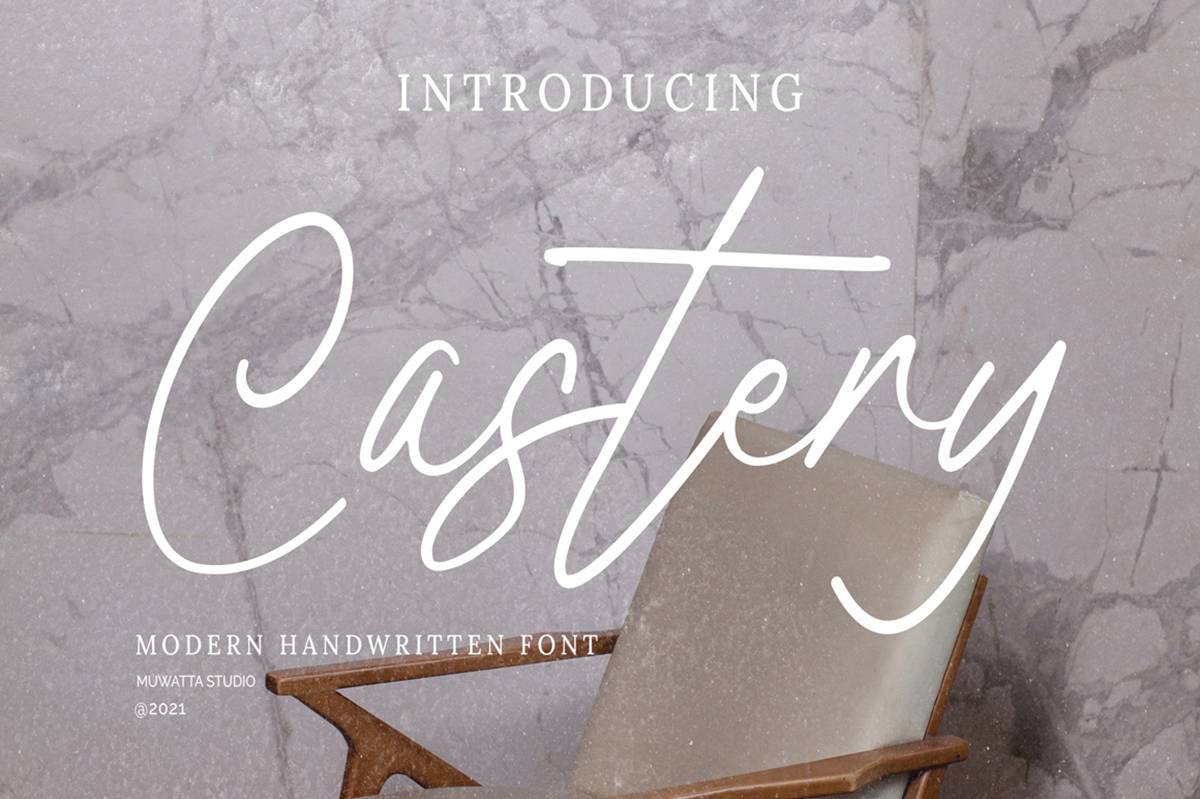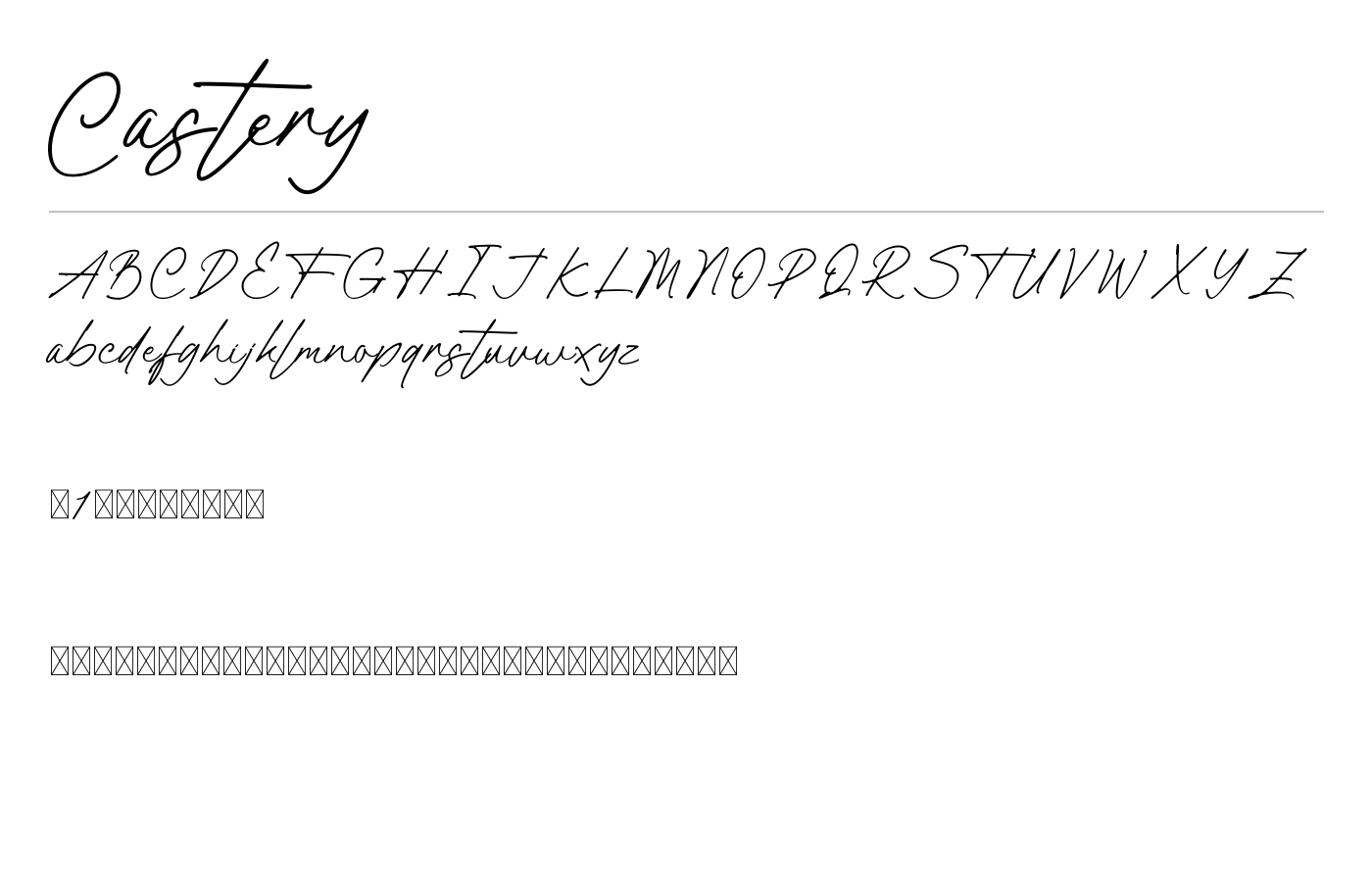
Castery is a delicate, handwritten script font with a light weight and an airy, elegant feel. Its smooth, flowing strokes and slightly condensed letterforms give it a modern, stylish personality perfect for feminine branding, wedding invitations, or personal logos. This font communicates warmth and sophistication, making it ideal for creative projects that seek a personal, handcrafted touch.
Castery Font
About Castery Font
| Font family | Castery Font |
| Designer | Bayu Wibisono |
| Trademark | Muwatta Studio |